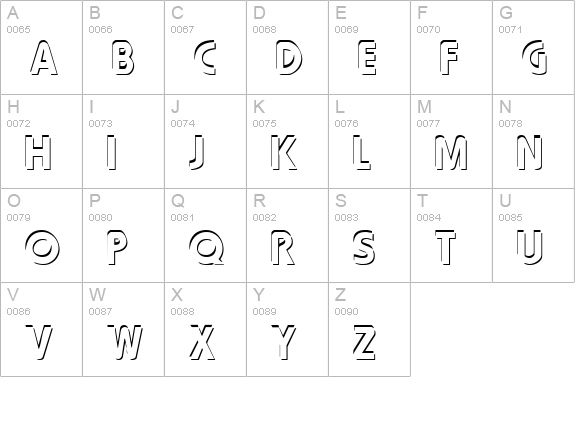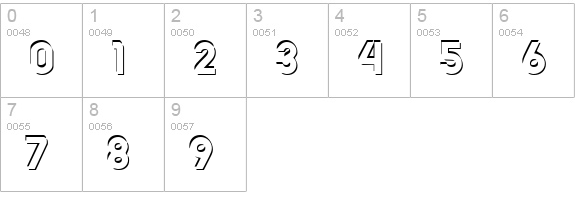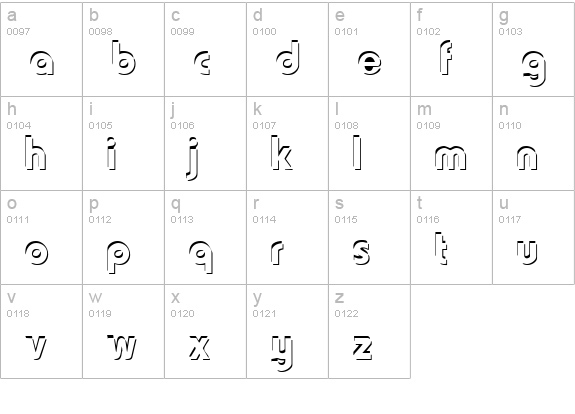
Blooshooz Font Details
Introducing Blooshooz font, a whimsical and playful typeface that is sure to add a touch of fun to your design projects. With its quirky and unique letterforms, Blooshooz is perfect for creating eye-catching headlines, posters, invitations, and more. This font exudes a sense of creativity and charm, making it perfect for projects that call for a bit of personality. What's even better is that Blooshooz font is available for free download at FontsMarket.com. Yes, you read that right - this delightful font can be yours at no cost, making it an affordable and accessible option for all your design needs. So go ahead and give Blooshooz a try today and see how it can elevate your designs with its playful charm and whimsical style.